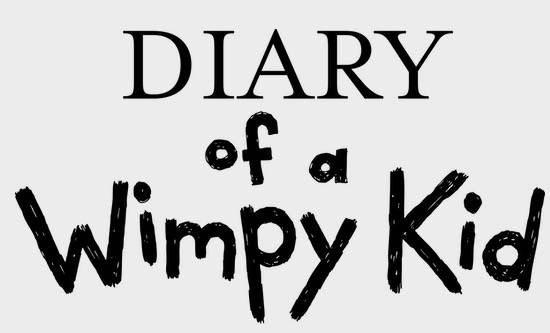
Diary Of A Wimpy Kid Cartoon Font.
In the book have two type of font,the main font is used on non capital letter of lower than two,the second font is used if capital letter is +2 the font is is created by jeff kinney text a novel in cartoon is use first font This is a cartoon font that we recommend using for the following purposes of work such as logos, invitations, branding, magazines, blog headers, quotes, posters, advertising, and more. Diary of a wimpy kid font generator about fonts pool text generator is an amazing tool, that help to generate images of your own choice fonts.